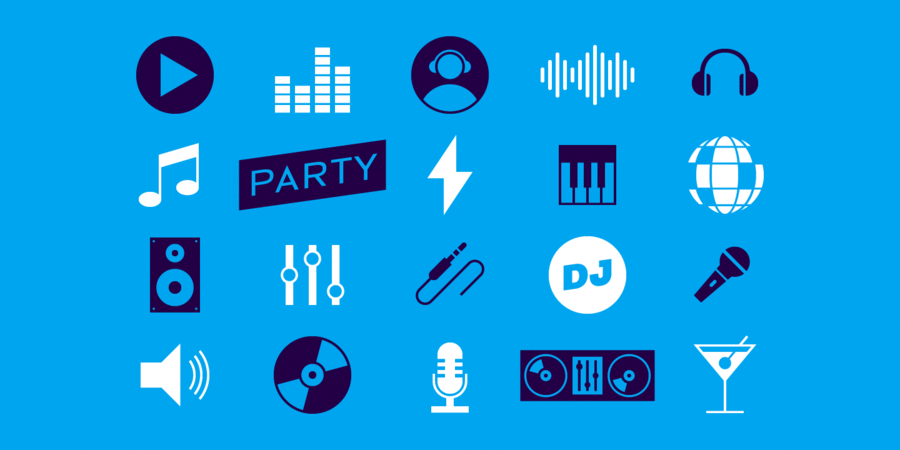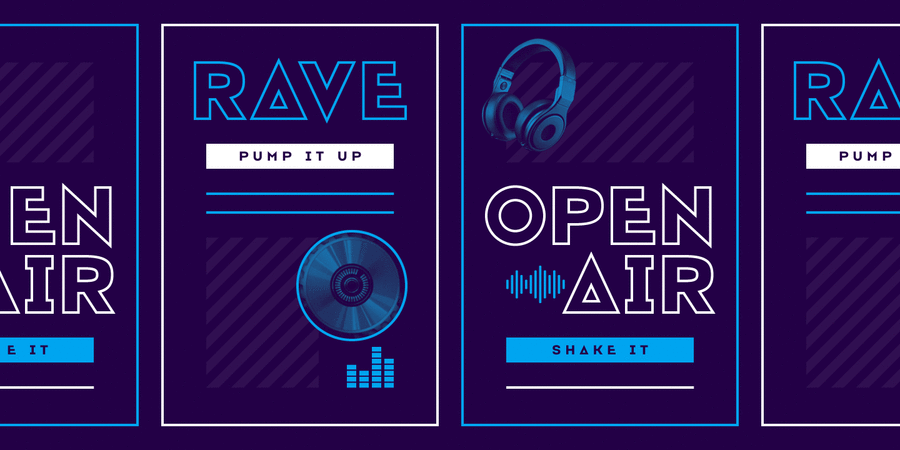
About ElectronicaElectrónica font family is a round, geometric sans serif typeface with display details and sharp, playful shapes for a fun and laid back usage. Electrónica has been conceived to be most suitable for logos, headlines and display design pieces as well as short length text blocks. Electrónica consists of 12 styles, 8 of which containing small caps and glyph coverage for several languages on Latin and Cyrillic and 4 of which are free for desktop use. The font family has been designed for Graviton Font Foundry by Pablo Balcells in 2019.
Features of font family ElectronicaThe hit of the decade:
Associations for font family ElectronicaTypeface personality and character:
easy, fashionable, thin, original, voiced, artistic, modern, urban, musical, popular, accurate, delicate, chilly, spectacular, weightless, transparent, intimate, fragile, air, glass, sharp, wire, cold, electronic, broken, angular, thorny, dynamic, expressive, youth, positive, fresh, solid, crisp, stable, splashy, bright, notable, motivating, engineering, architectural, convincing, serious, reliable, self-assured, strong, industrial, technogenic, loud, urbanistic, steel, robust, artificial, machine, iron, railway, ambitious, severe, rude, workman, manly, heavy, powerful, reputable, active, Soviet, monumental, brutal, rigid, yelling, neon, clubbing, mannered, witty, playful, glossy, party, rhythmic, festive, attractive, acid, dancing, hipster, glad, sexy, night
fashion, music, design, city, barbershop, diet, hygiene, purity, gadget, device, electronics, disco, aquadiskotheque, bar, cafe, interior, theater, clothes, equipment, footwear, architecture, cinema, reward, spaceship, technology, engineer, coworking, architect, sport, football, industry, machine tool, tool, factory, fitness equipment, urban studies, automation, satellite, constructor, railway, rap music, concert, entertainment, accessories, casino, game, club, night club, TV, show, party, partying, attraction, dance, rock n roll, decoration, celebration, cocktail, repairs, port, construction, building, railway carriage, mail, package, box, stock, pyrotechnics, packing, building materials, depot, mine, miner, helmet, uniform, burger, meat, metallurgy, motor, hardware, steel-maker, workman Typeface associated with age: